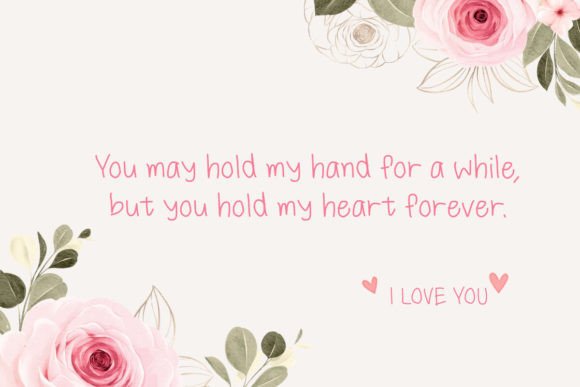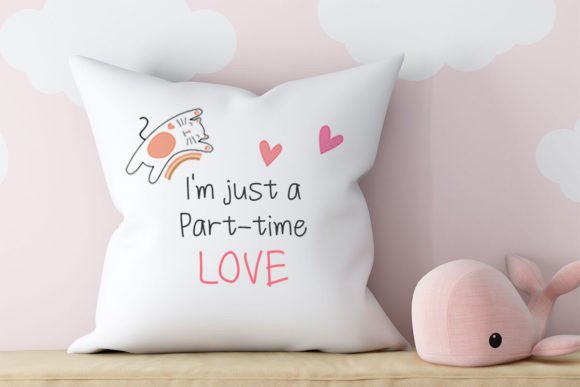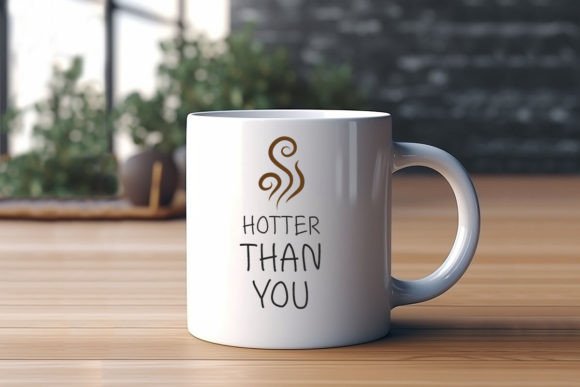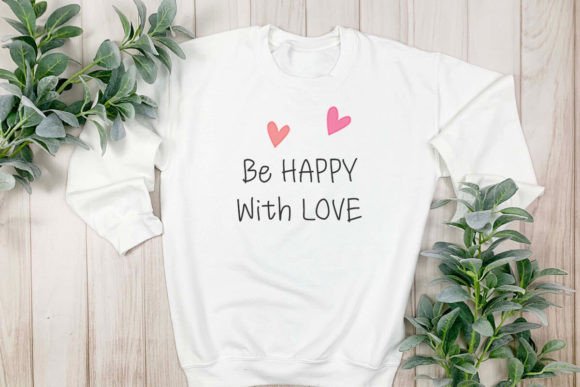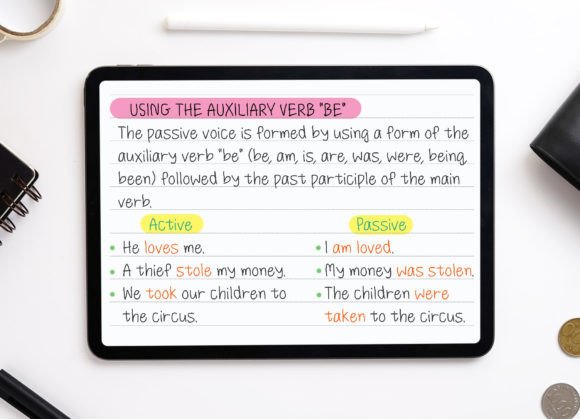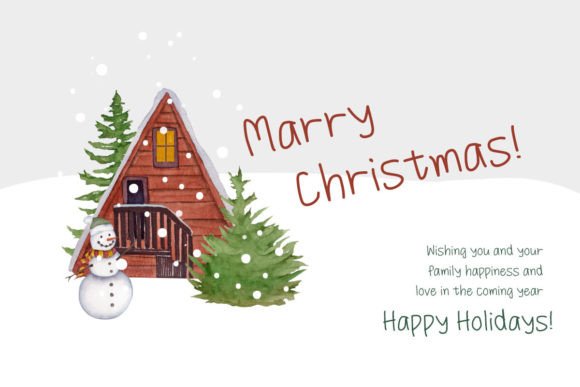
Have you ever been brainstorming ideas for a new project and suddenly felt the urge to pick up a pen and paper? The freedom to create without the constraints of a digital screen can be incredibly liberating. It’s moments like these that inspire us to explore new ways of expressing ourselves, and for designers, the right tools can make all the difference.
Enter the Easy Life Oo Font, a playful and whimsical handwritten font that’s perfect for adding a touch of personality to your designs. With its informal style and casual vibe, this font is a great choice for a wide range of projects, from fun and quirky posters to heartfelt greeting cards.
For designers looking to add a little extra magic to their work, the Easy Life Oo Font is a valuable asset. Its unique style and versatility make it an excellent choice for everything from logos to blog headers, and its ease of use makes it accessible to designers of all skill levels.
Easy Life Oo Font Key Features
- Font Family: Easy Life Oo Font is a sans-serif typeface.
- Unique Characteristics: Features a clean and modern design with subtle rounded edges, making it suitable for various digital applications.
Designer Review: Easy Life Oo Font
Overall, I’d say the Easy Life Oo Font is a nice addition to any designer’s toolkit. Here are some of its strengths:
- ✨ The font’s friendly and approachable vibe is perfect for projects that require a casual, laid-back feel.
- ✨ Easy Life Oo Font has a good balance of legibility and aesthetics, making it suitable for body text as well as headings.
- ✨ The font’s unique quirks and flourishes add visual interest and help it stand out from more generic sans-serif fonts.
However, I do have some reservations:
- ⚠️ At larger font sizes, the font’s irregularities can start to look a bit messy or inconsistent.
- ⚠️ The font’s open feel can make it harder to read in certain contexts, such as in lists or tables.
- ⚠️ Some users may find the font’s unconventional letterforms too whimsical or distracting.
Overall, I’d say the Easy Life Oo Font is a solid choice for designers who want to add some personality to their projects. While it may not be the best fit for every situation, it’s a great option for projects that require a unique, approachable feel.
To get the most out of the Easy Life Oo Font, try combining it with bold or italic styles to add emphasis. You can also experiment with different font sizes and colors to create visual interest.
The Easy Life Oo Font is perfect for creating a fun and playful vibe in your designs. Use it for social media graphics, blog posts, or any other content that needs a touch of whimsy.
Alternatives to Easy Life Oo Font
Ostrich Sans is a modern sans-serif font that works well for digital products, branding, and marketing materials. It’s highly legible and suitable for body text and headings. Compared to Easy Life Oo Font, Ostrich Sans has a more geometric and futuristic feel, making it a great choice for tech and innovation-based designs.
Lato is a clean and elegant sans-serif font that’s perfect for corporate, luxury, and modern designs. It’s highly versatile and can be used for both body text and headings. Lato has a more refined and sophisticated feel compared to Easy Life Oo Font, making it a great choice for high-end branding and marketing materials.
Avenir is a geometric sans-serif font that’s highly legible and suitable for a wide range of designs. It’s a great choice for branding, marketing materials, and digital products. Compared to Easy Life Oo Font, Avenir has a more modern and sleek feel, making it a great choice for minimalist and high-tech designs.
Montserrat is a geometric sans-serif font that’s highly versatile and suitable for a wide range of designs. It’s a great choice for branding, marketing materials, and digital products. Montserrat has a more urban and modern feel compared to Easy Life Oo Font, making it a great choice for designs that need a city-inspired vibe.
Q: What is the recommended font size for optimal readability with the Easy Life Oo Font?
The recommended font size for optimal readability with the Easy Life Oo Font varies depending on the application and screen resolution. As a general guideline, use font sizes between 10pt and 14pt for body text, and adjust according to your design’s specific needs. For digital applications, consider using relative font sizes (e.g., em or rem) to ensure responsive typography.